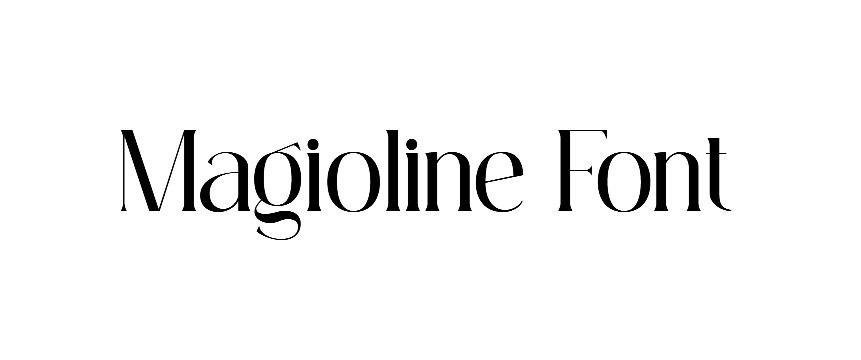
Magioline
Magioline is a serif font created by Muksal Creative (2022). It has the traditional, bookish feel of type you see in novels, newspapers and long-established brands. You can download it for free and test it with your own words in the preview above.
What You Can Type With Magioline
Magioline covers the full alphabet in upper and lowercase, plus all ten numbers, so you can set names, dates and prices without switching fonts. Punctuation is limited, so look at the character map if you need a specific symbol. There are no accented letters like é or ñ, so it's best kept to English text.
Where Magioline Works Best
Magioline is a natural fit for book covers, magazine headlines and classic branding. Serif fonts shine in headlines and printed text. For long paragraphs on phones, check that it still reads well at small sizes.
Does Magioline support accented letters?
No. Magioline has no accented letters such as é, ñ or ü, so it's best for English text.